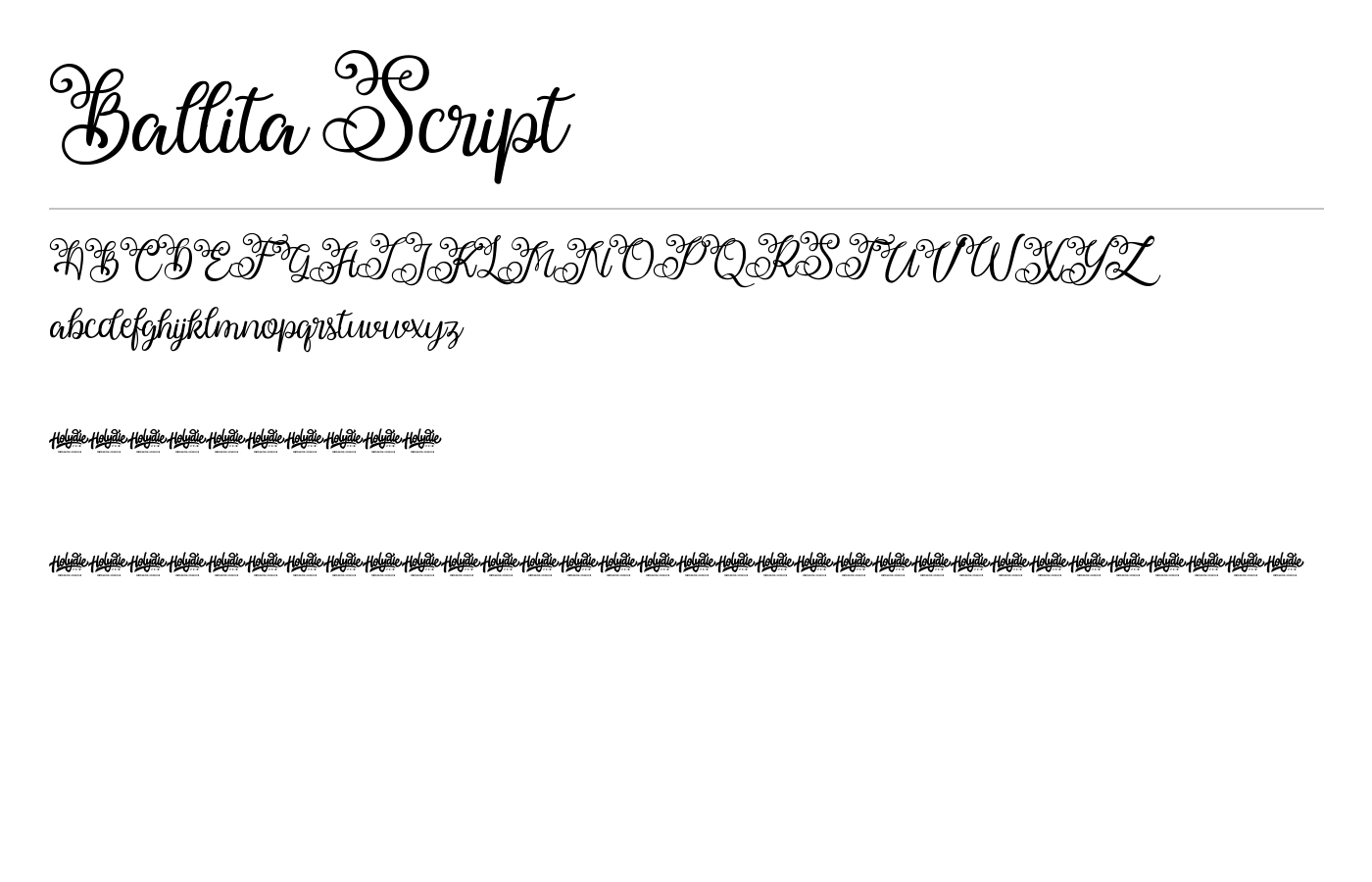
Ballita Script is an elegant, decorative script font featuring intricate, flowing letterforms with ornate swashes that give it a sophisticated and vintage feel. Its delicate strokes and high contrast create a refined, feminine style perfect for luxury branding, wedding invitations, and upscale packaging. This font works best in large display settings where its detailed flourishes can shine and add a touch of classic charm.
Ballita Script Font
About Ballita Script Font
| Font family | Ballita Script Font |
| Designer | Holydie Studio (Yugo Priyat Moko) |